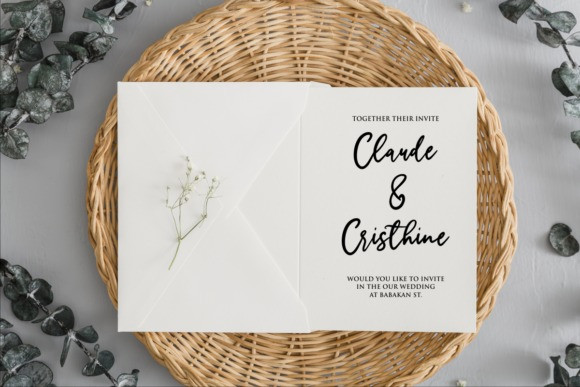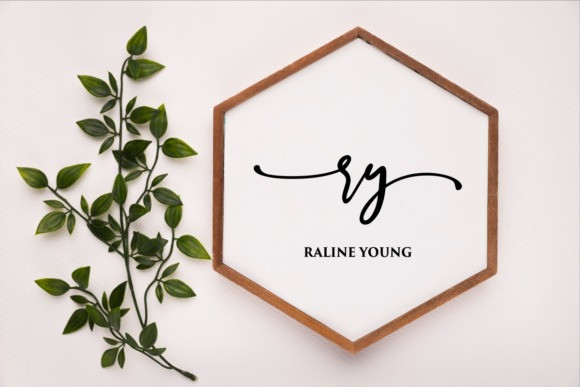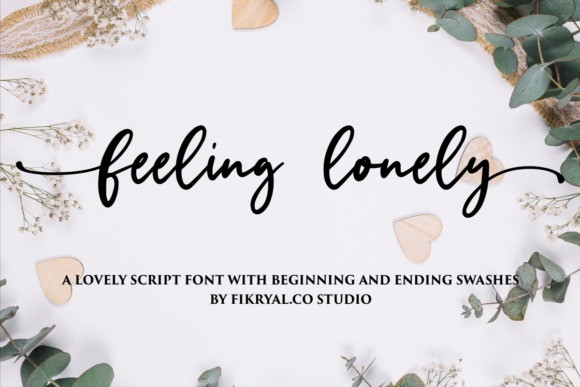
little pumpkin Script Font
little pumpkin – is a modern handwritten. This font is made in a modern style with elegantly,very casual and suitable for your various design needs I’tsPerfect for logo,branding, tittle, social media posts, advertisements, product packaging, product designs, label, photography, watermark, special event,magazine,web design,etc.What’s